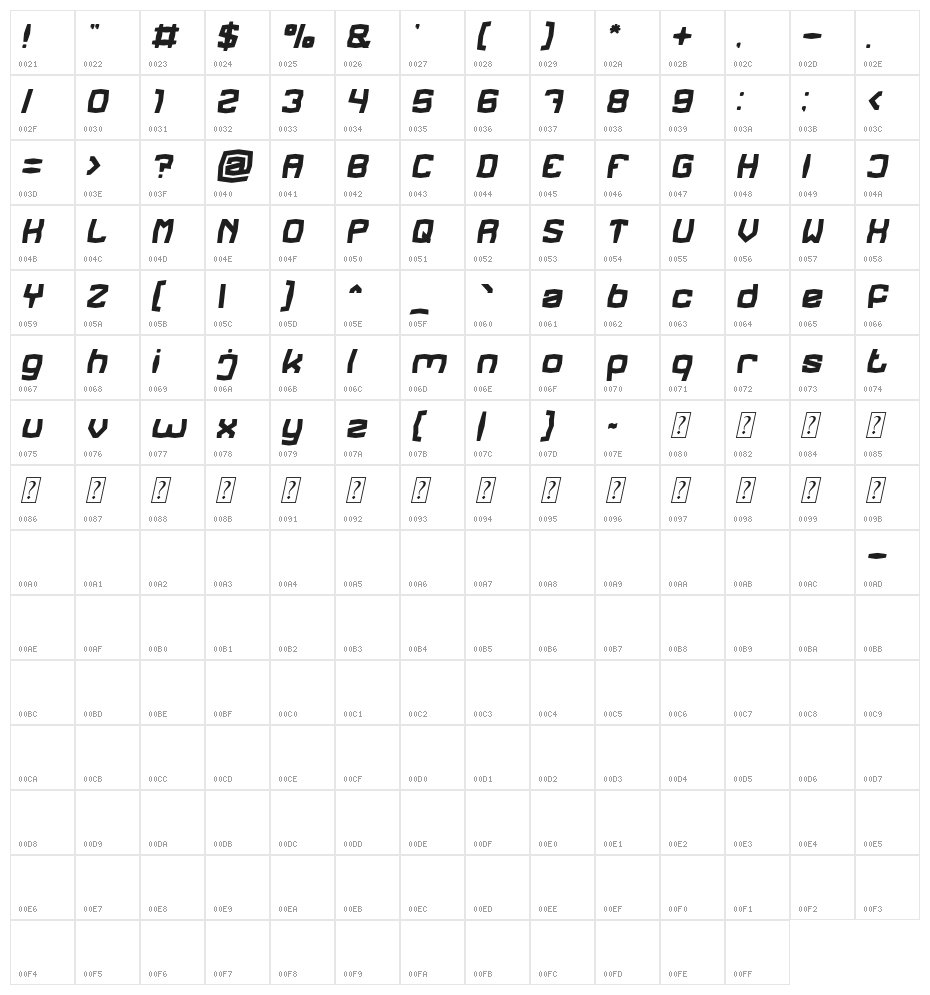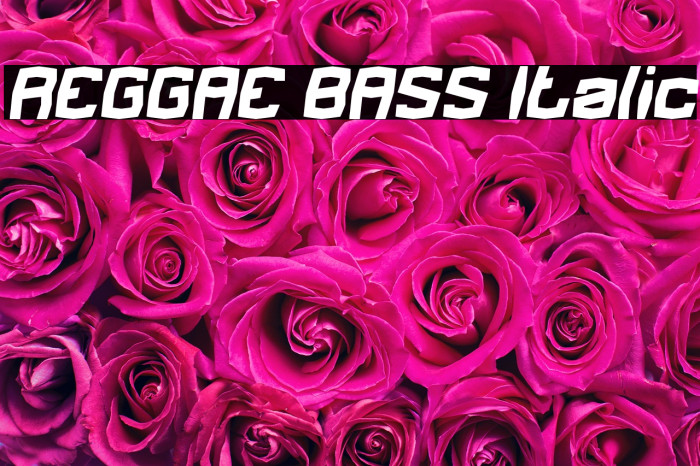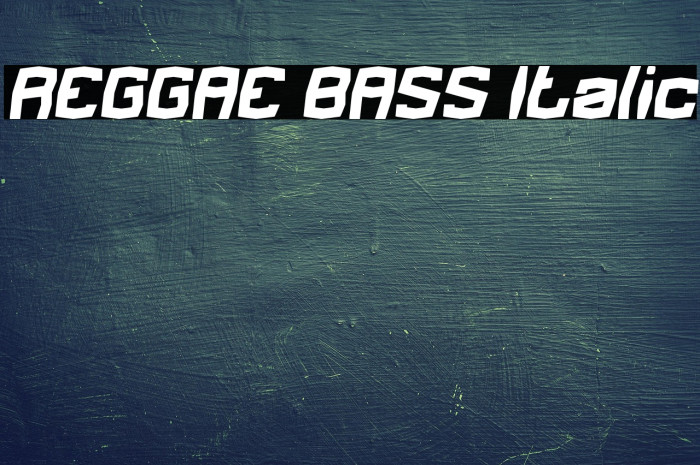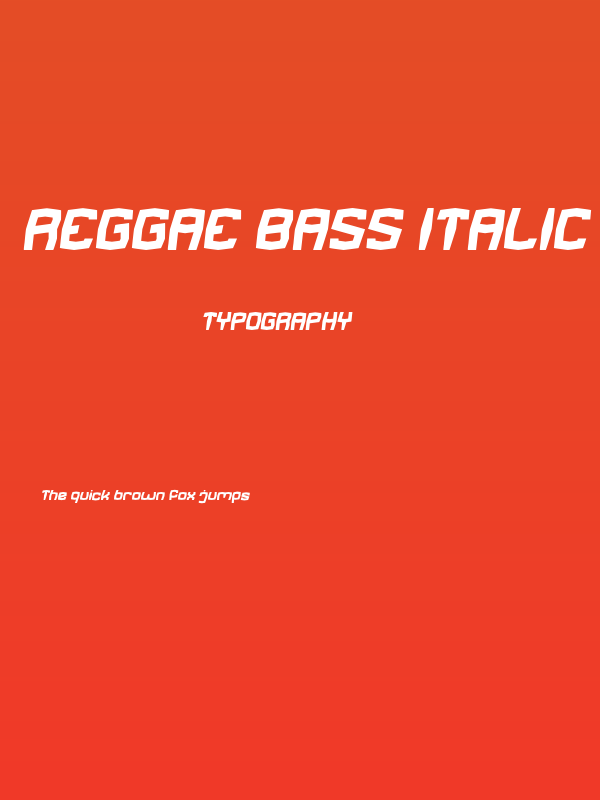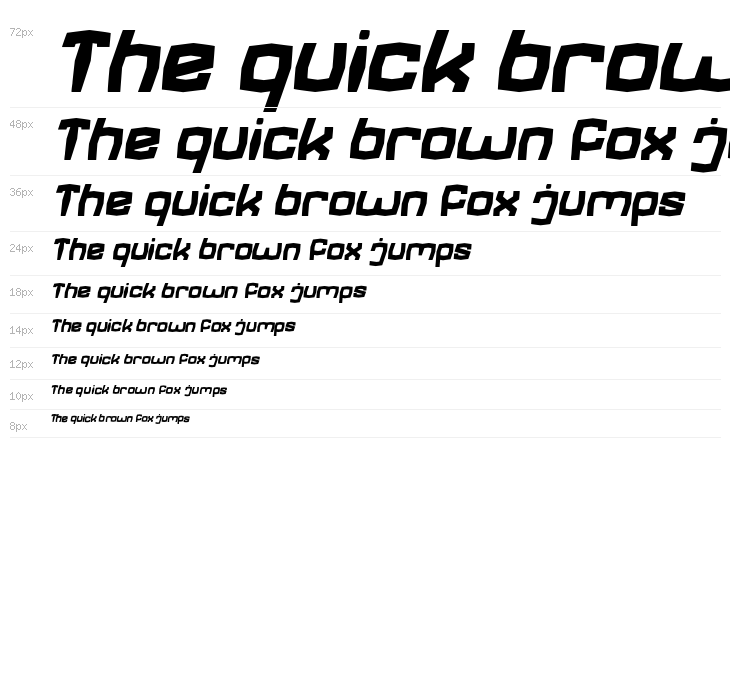
REGGAE BASS Italic Font
REGGAE BASS Italic Description
This font features a bold and dynamic style with a distinctly italicized slant, giving it a sense of movement and energy. The characters are thick and robust, with angular edges that create a modern and edgy appearance. The uppercase and lowercase letters maintain a consistent style, while the numerals and special characters complement the overall design. The font's unique style makes it stand out, ideal for projects that require a bold statement. Its design is reminiscent of urban and contemporary themes, making it suitable for creative and artistic applications.
Proposed ProjectsIdeal for music album covers, posters, branding for edgy or urban-themed products, and creative digital artwork.